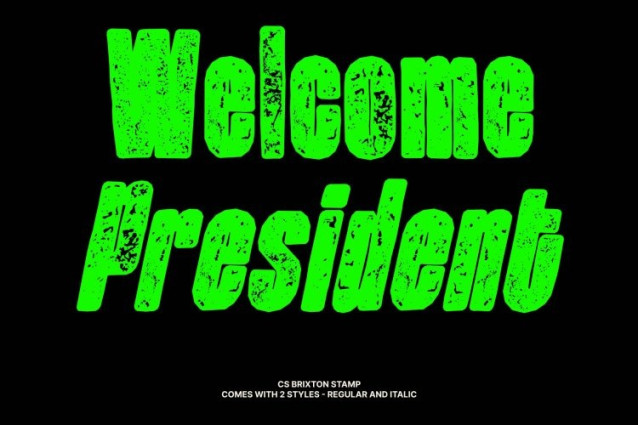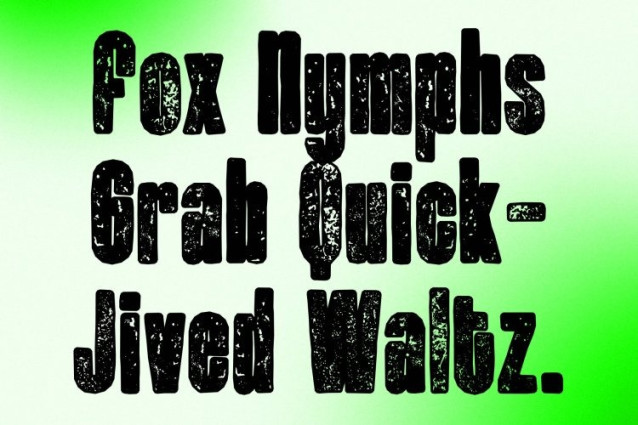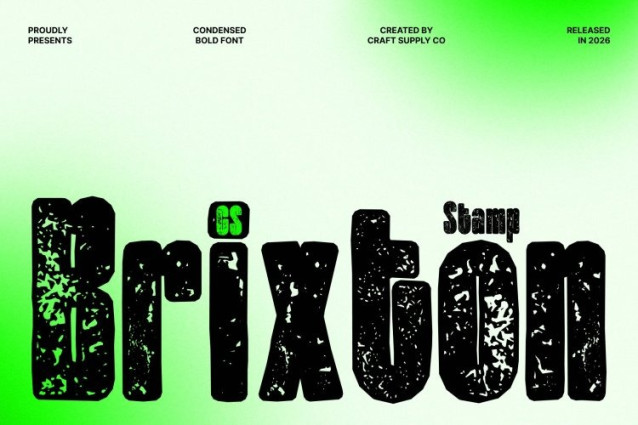
CS Brixton Stamp Font
CS Brixton Stamp Font – This is a bold modern sans serif font designed to make a strong visual statement. Its clean, contemporary letterforms and distinctive shapes create a commanding presence that immediately captures attention. Enhanced with a subtle stamped texture, the font gains a handcrafted depth that adds character while maintaining its modern precision and clarity.
Sleek, Cool, and Distinctive
What makes stand out is its ability to balance bold structure with stylish sophistication. The tightly constructed letterforms deliver confidence and stability, while the textured stamp effect introduces a raw, expressive detail. This fusion of modern geometry and tactile texture creates a unique look that feels both fashionable and authentic.
Ideal for Standout Branding and Visual Design
Whether used for logos, product packaging, website headers, or promotional graphics, delivers a bold and memorable visual presence. Its strong structure ensures excellent readability, while the textured finish gives designs an added layer of visual interest and personality.
Perfect for Fashion and Digital Visuals
This is especially well suited for fashion branding, social media graphics, creative campaigns, and contemporary visual identities. Its bold personality, modern styling, and textured character make it an ideal choice for designers looking to create typography that feels sharp, stylish, and unmistakably impactful.